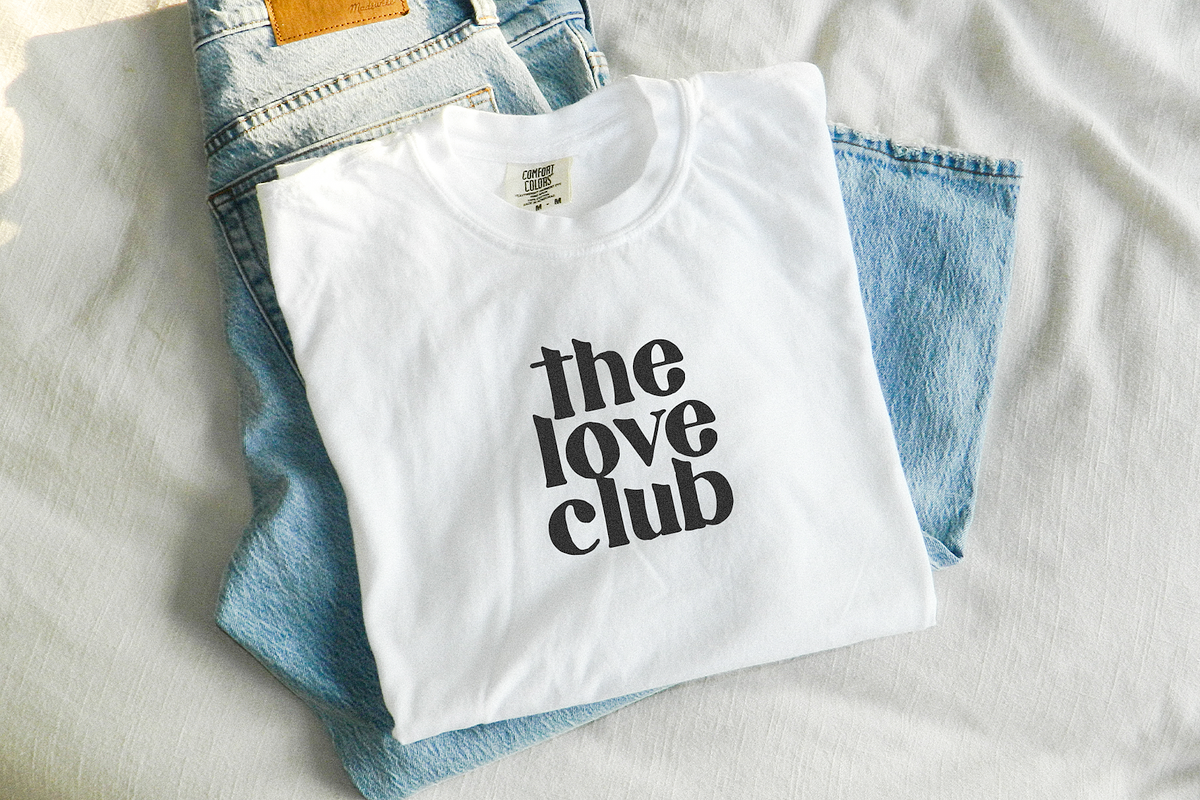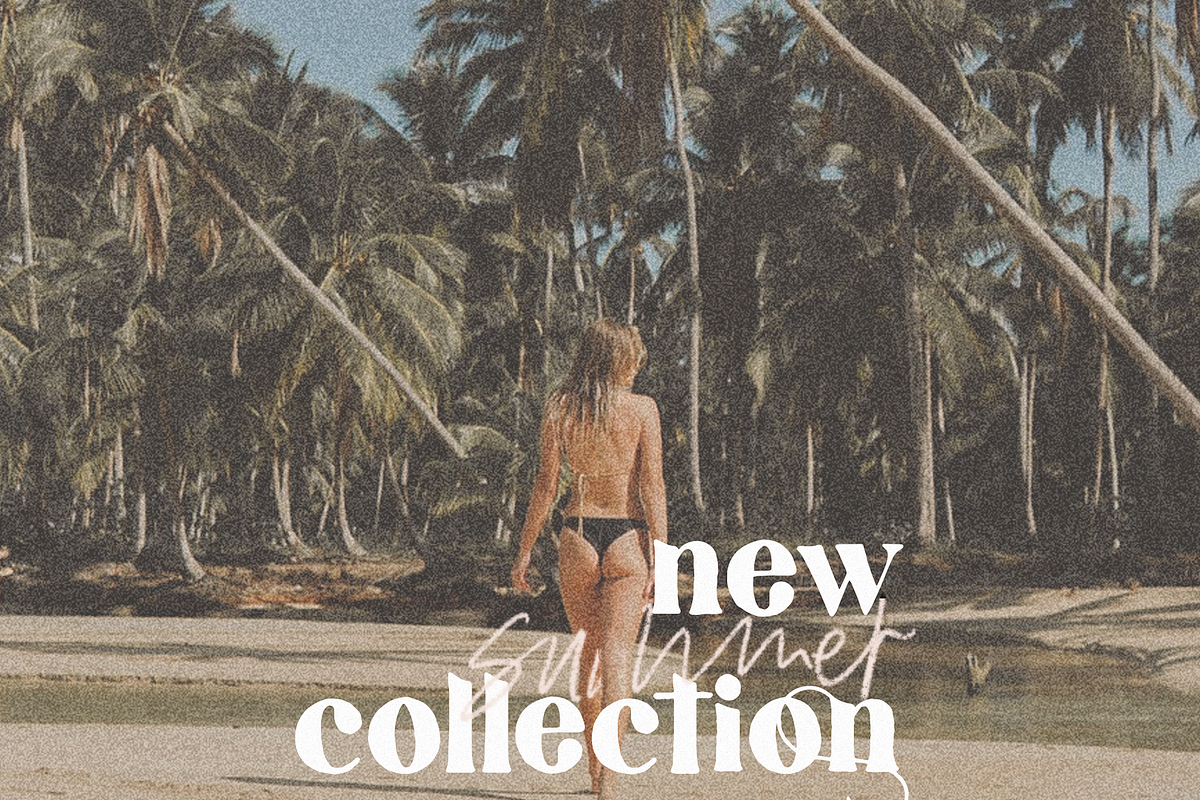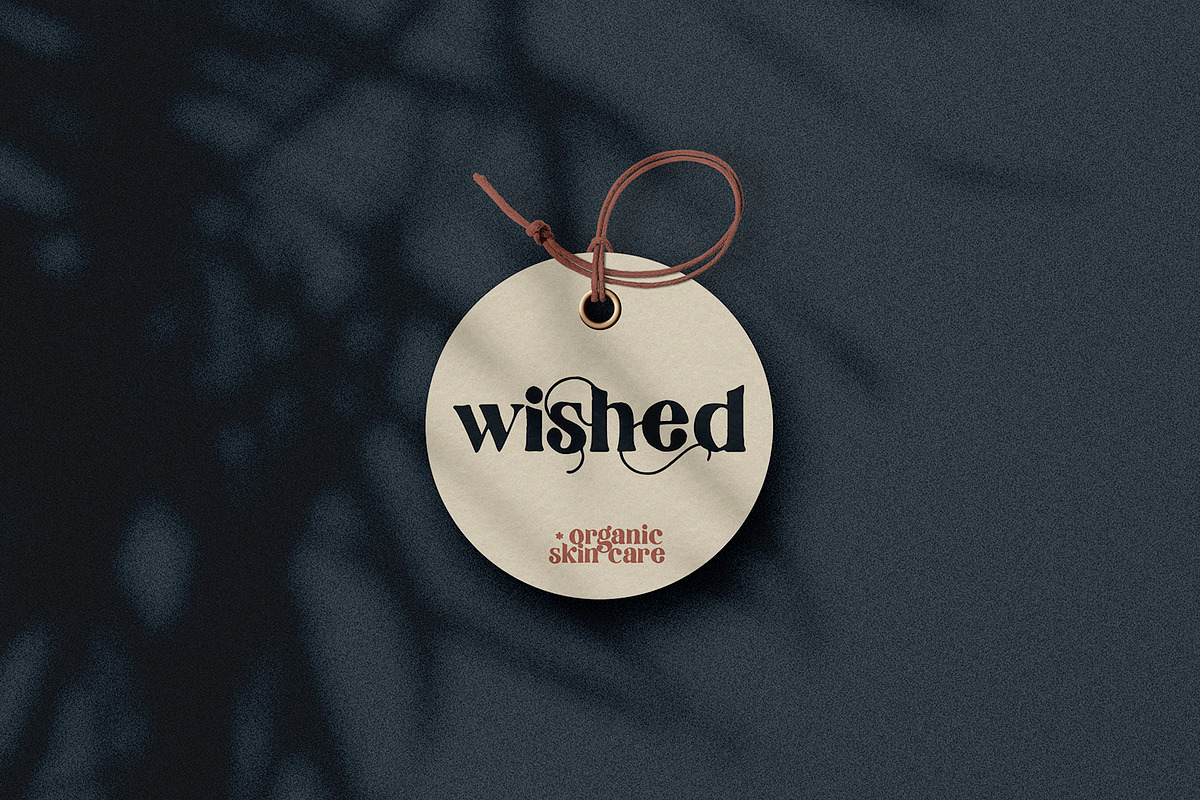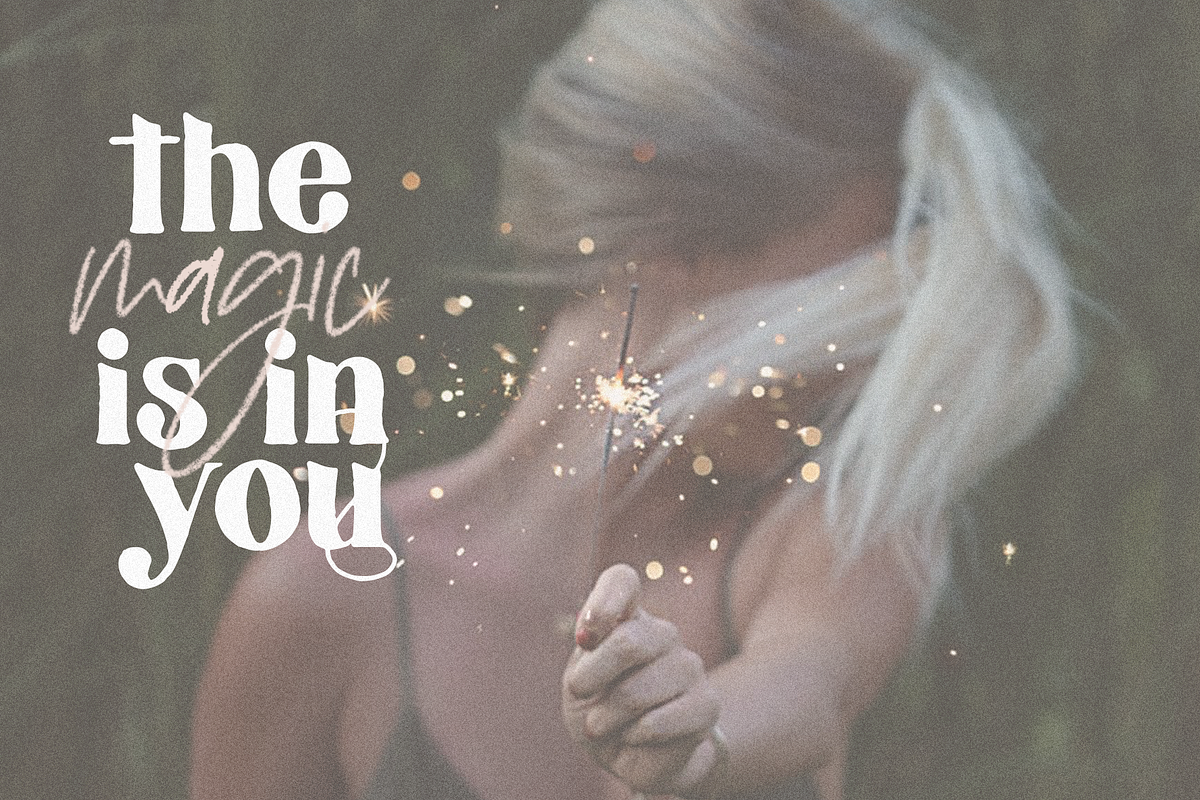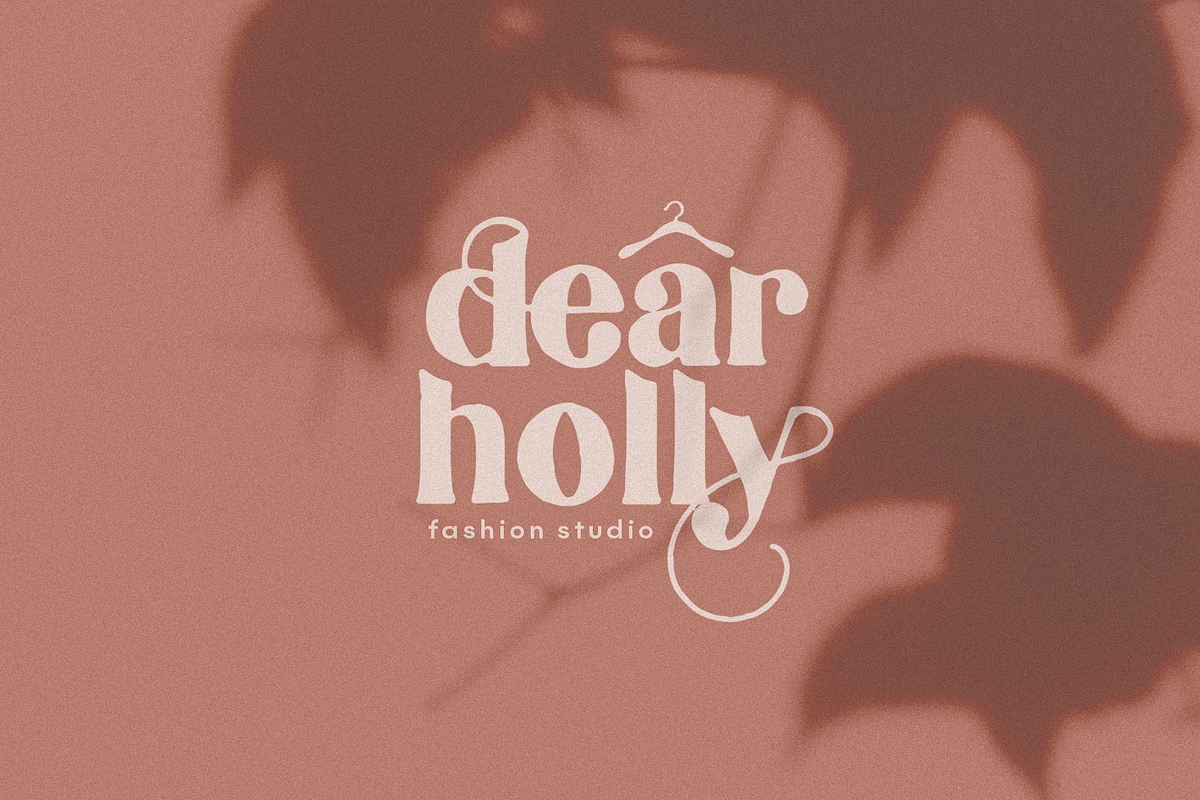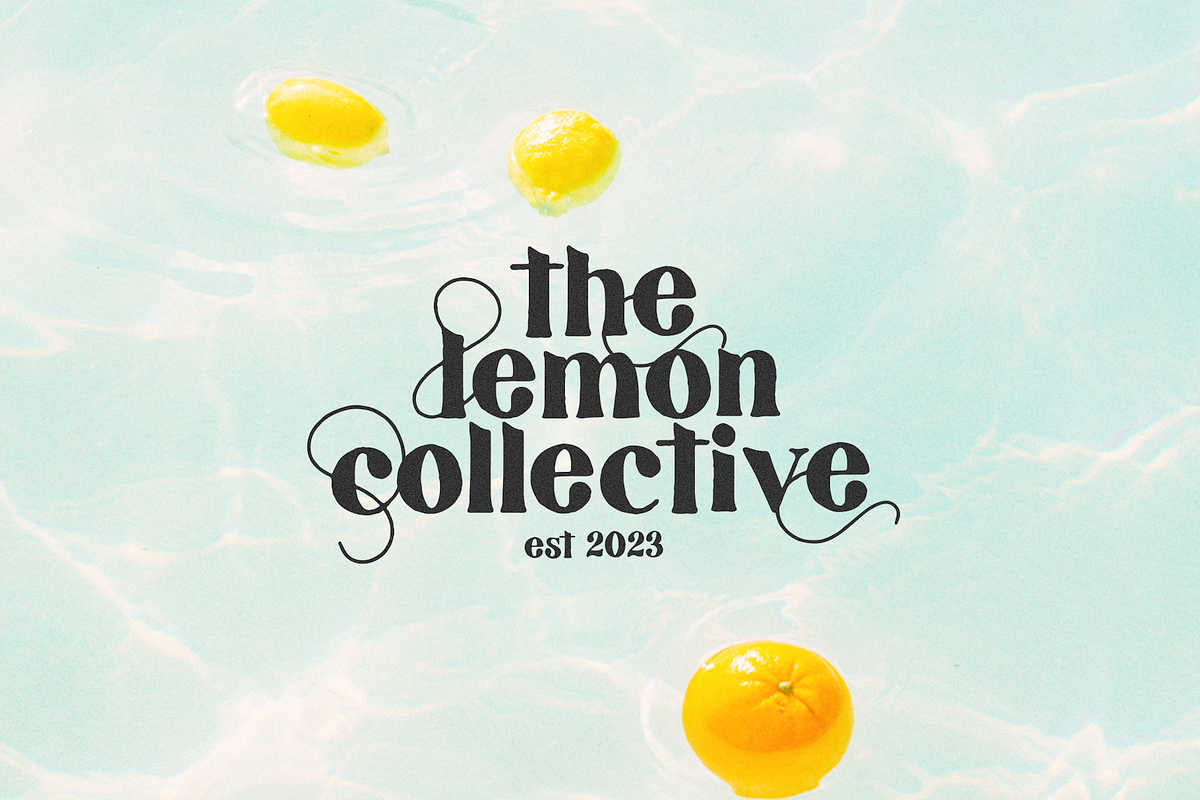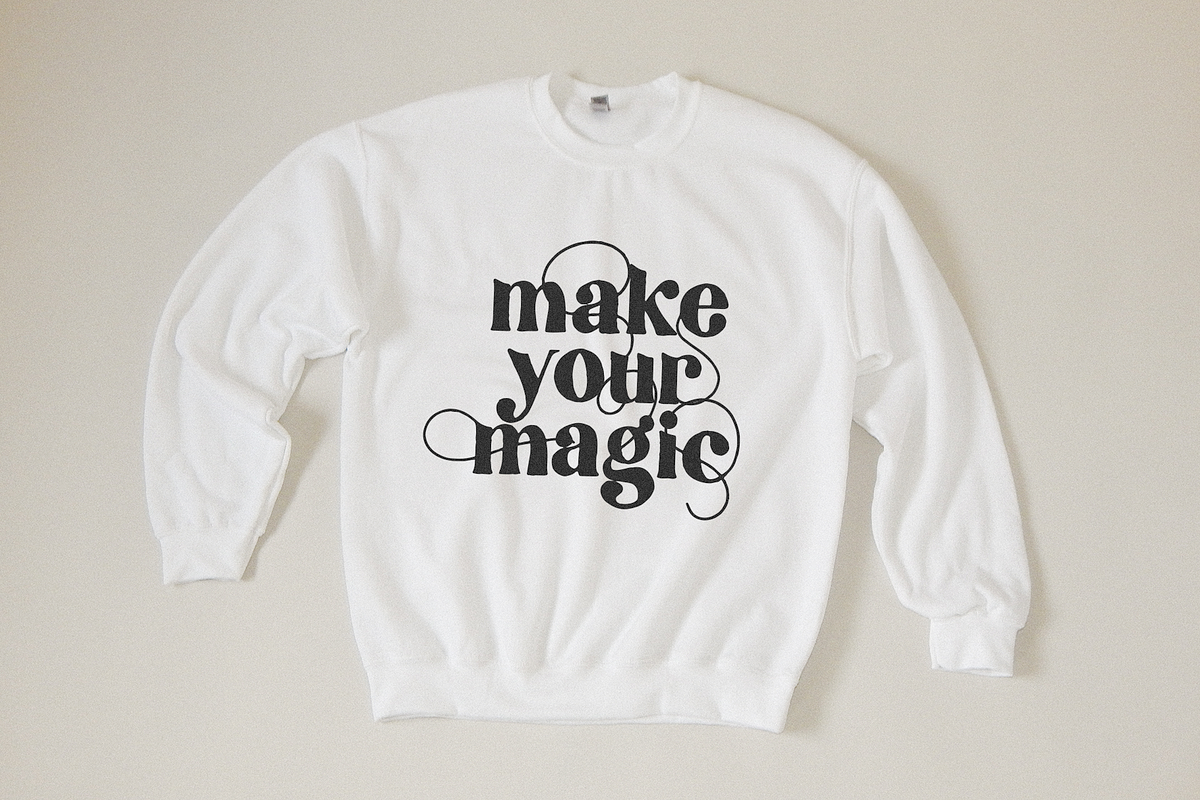
Collective | Handdrawn Serif Font
Collective is a hand-drawn serif font with a modern, messy look.
Collective pairs perfectly with thin, script fonts - try it with The Brywood from the preview pics here